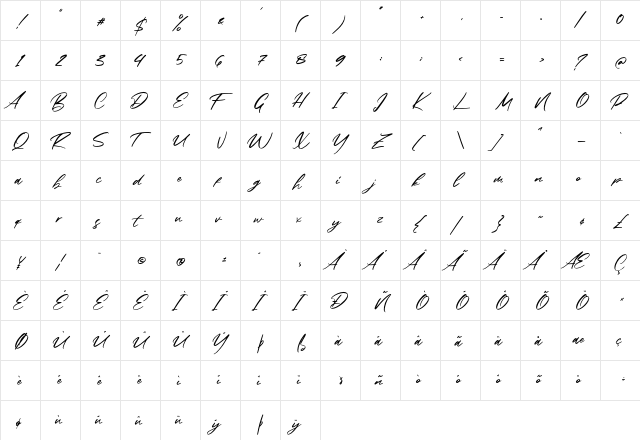
Bahisey Regular
| Foundry | Stringlab |
| Designer | Stringlab |
Design Context for Bahisey Typeface
Bahisey is a composed and adaptable typeface that performs quietly and consistently across a wide range of design contexts.